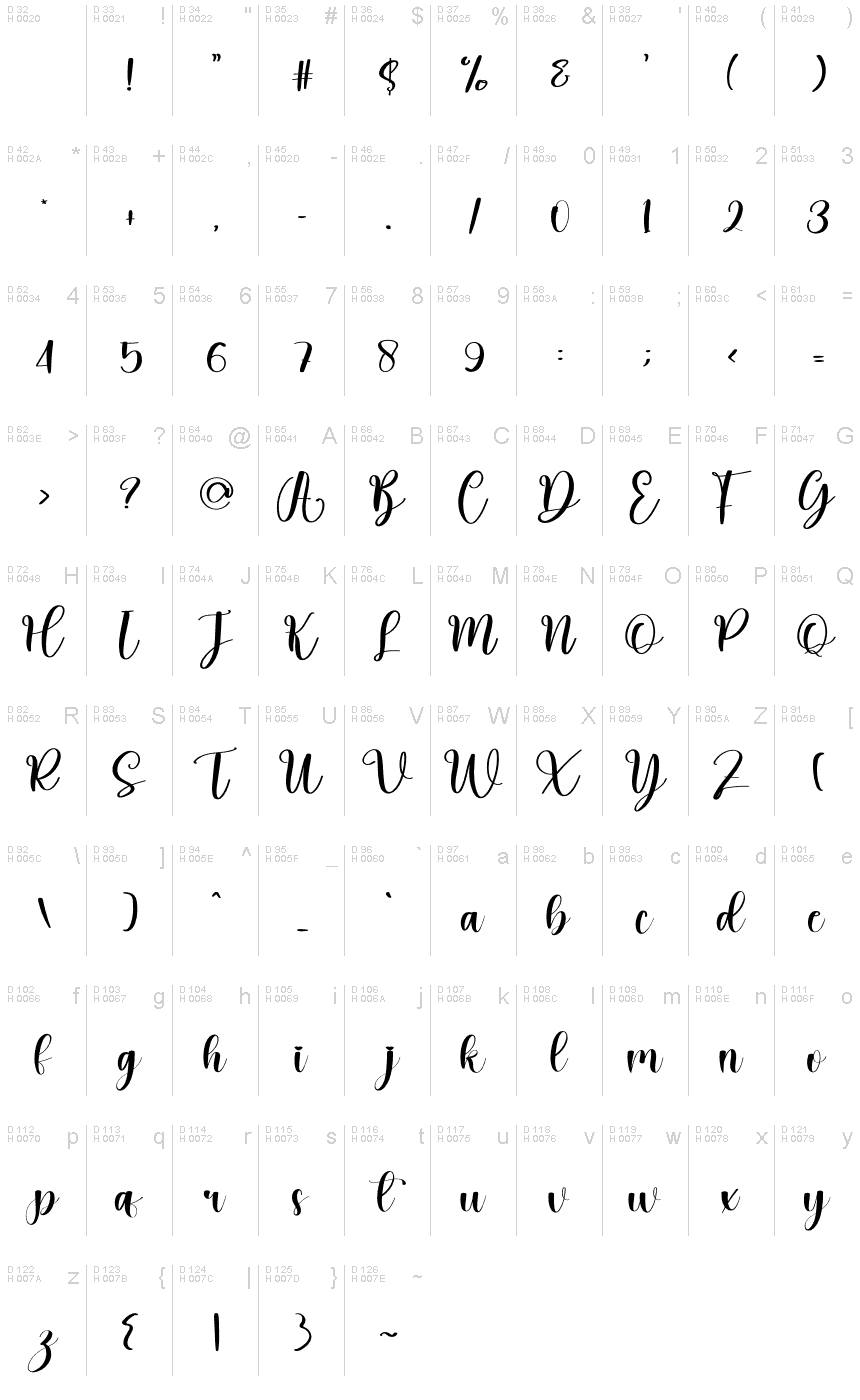
Winter
Winter, a calligraphic masterpiece from Inermedia Studio, presents a semi-light font weight that balances delicacy with readability. With its fluid curves and elegant swashes, this font captures the essence of handwritten artistry. Its sweeping ascenders and descenders add a touch of sophistication to any project.
The Winter font's graceful lines and organic flow lend themselves beautifully to invitations, branding, and editorial designs where a personal touch is desired. The semi-light weight ensures that the type remains legible even at smaller sizes, making it versatile for both digital and print mediums.
Embrace the charm of Winter in your next creative endeavor, where it can convey warmth and elegance with timeless appeal. Whether crafting wedding stationery or enhancing marketing materials, this font's unique blend of classic calligraphy with contemporary finesse makes it an exceptional choice for designers aiming to leave a lasting impression.